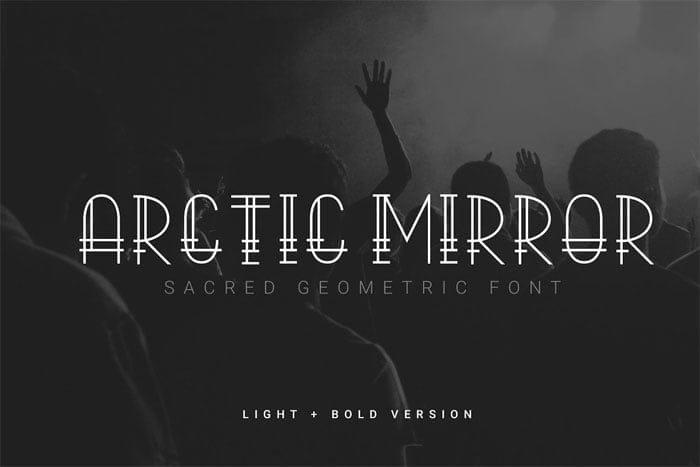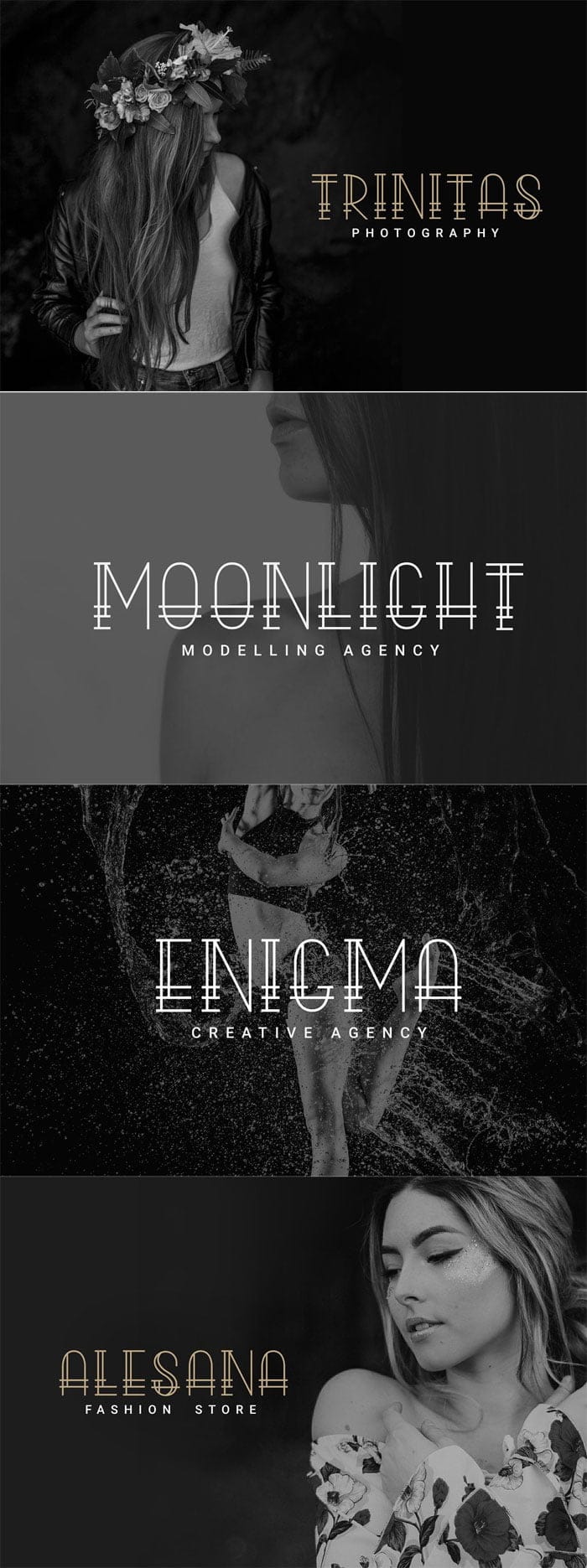
Arctic Mirror Sacred Font
Create a Extraordinary Typography / lettering results by using Arctic Mirror – Sacred Fonts. Best match for logos, header, Titles, Prints & other Creative process possibilities.
Arctic Mirror Sacred Font
• Clean Results